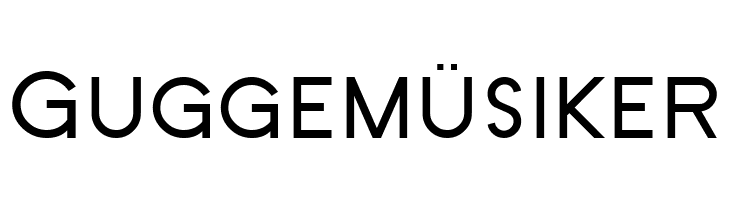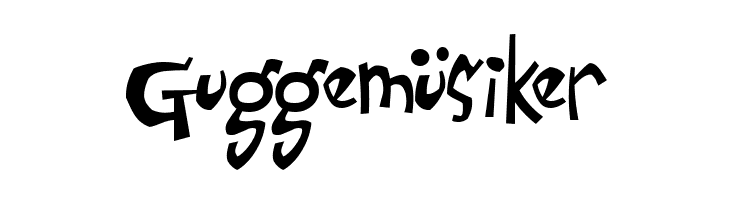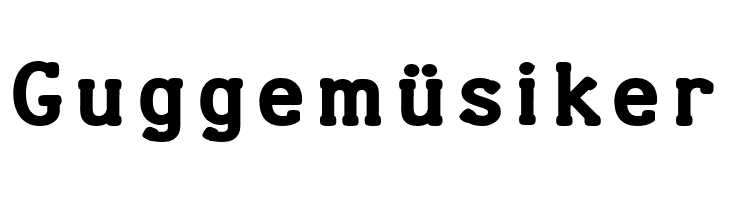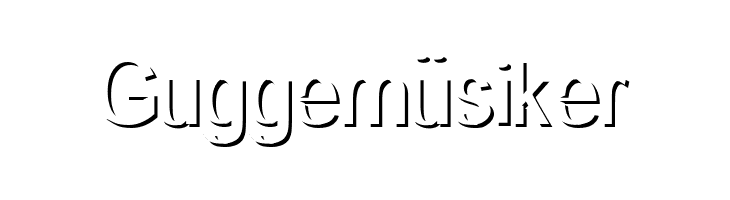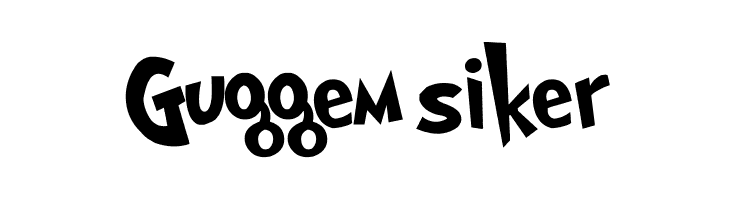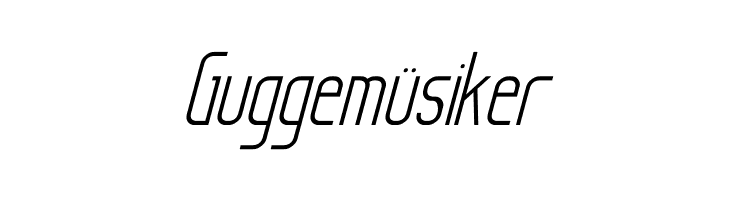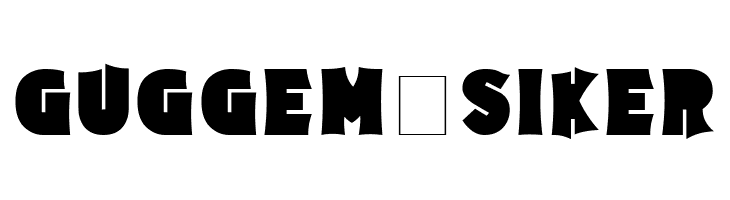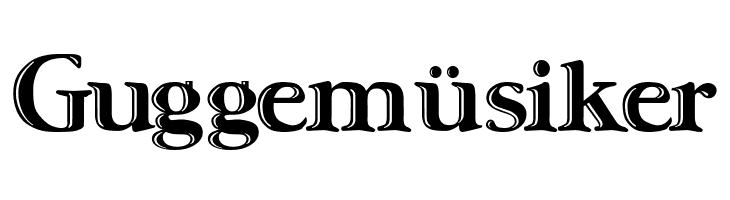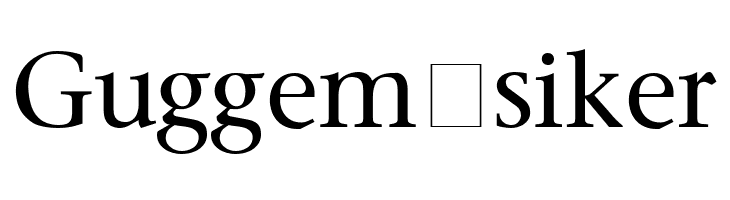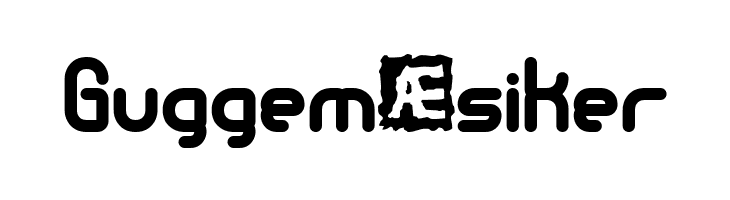
A modern, geometric sans-serif font with a clean and professional appearance.
A playful and quirky font with irregular, dynamic letterforms.
A bold, rounded font with a modern and robust appearance.
A modern, three-dimensional font with sharp edges and a sophisticated style.
A bold, edgy font with sharp angles and thick strokes, perfect for standout designs.
A bold, rounded font with smooth curves and consistent thickness.
A bold, dripping font with a graffiti-inspired style.
A modern, geometric font with clean lines and consistent stroke width.
A bold, classic serif font with strong strokes and pronounced serifs.
A playful, warped font with rounded edges and dynamic strokes.
A bold, geometric font with rounded characters and a modern industrial feel.
A bold, modern font with rounded edges and geometric structure.
A modern, geometric font with bold lines and tech-inspired design.
A decorative serif font with sharp serifs and flowing curves.
A playful, curly font with a hand-drawn, whimsical style.